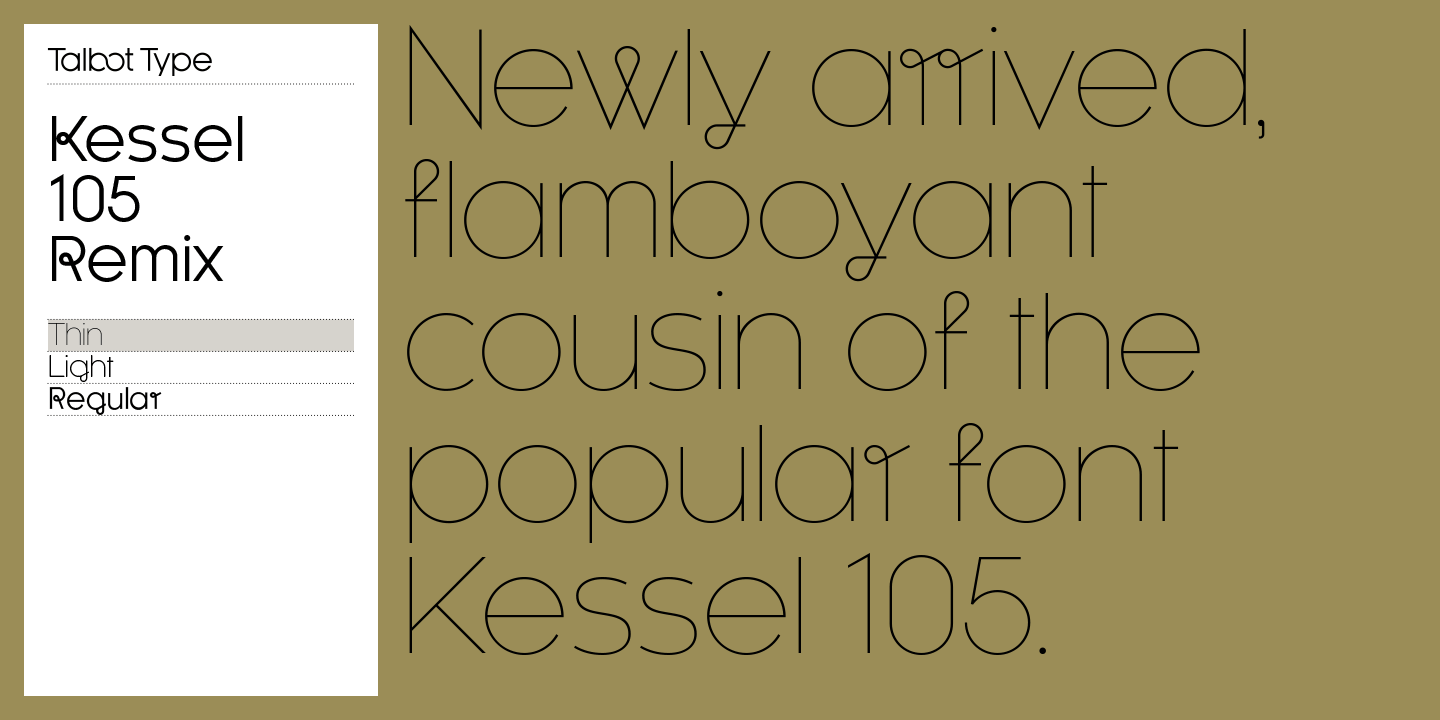
Kessel 105 Remix Font is perfect for electronic music event posters, DJ brand identities, nightclub marketing materials, remix album covers, underground music venue signage, techno festival promotions, music producer logos, dance party invitations, streaming platform interfaces, and cutting-edge audio-visual projects that pulse with electronic energy and remix culture.
What makes Kessel 105 Remix Font exciting is its dynamic ability to capture the high-energy pulse and innovative spirit of electronic music culture through its rhythmic letterforms that seem to vibrate with bass-heavy beats and synthesized melodies. This electrifying typeface embodies the essence of remix artistry and DJ creativity with its modern character that speaks of late-night dance floors, pounding sound systems, and the transformative power of electronic music production and remix innovation.
The Kessel 105 Remix Font family includes regular, bold, and glitch variations designed to maintain its electronic authenticity across various music industry applications. Special audio symbols, waveform ornaments, and remix-themed decorative elements complement the main typeface, while enhanced spacing ensures optimal readability for both intimate club flyers and massive festival stage displays.
Kessel 105 Remix Font Free Download offers music industry professionals access to typography that resonates with electronic culture. Its rhythmically crafted letterforms maintain excellent legibility while projecting an image of musical innovation and underground credibility. The font's versatile nature works brilliantly for both independent electronic artists and major record label productions.
Drop the beat with Kessel 105 Remix Font and create designs that celebrate the transformative power of electronic music while connecting with audiences who live for the remix revolution.